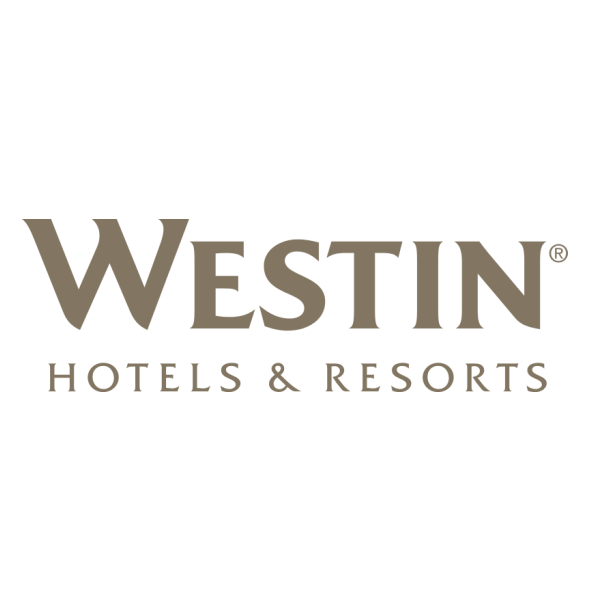
Fonts in UseWestin Hotels & Resorts is owned by Marriott International and is located in numerous cities worldwide, including New York, Paris, and Tokyo. It offers luxurious accommodations, high-end amenities, and exceptional customer service to guests.
The hotel chain's logo font is likely to be Friz Quadrata Bold, a serif typeface initially created by Ernst Friz in 1965 and further developed by two additional designers during the following two decades. Inspired by stone carving and chiseling, this font style is available for purchase here.